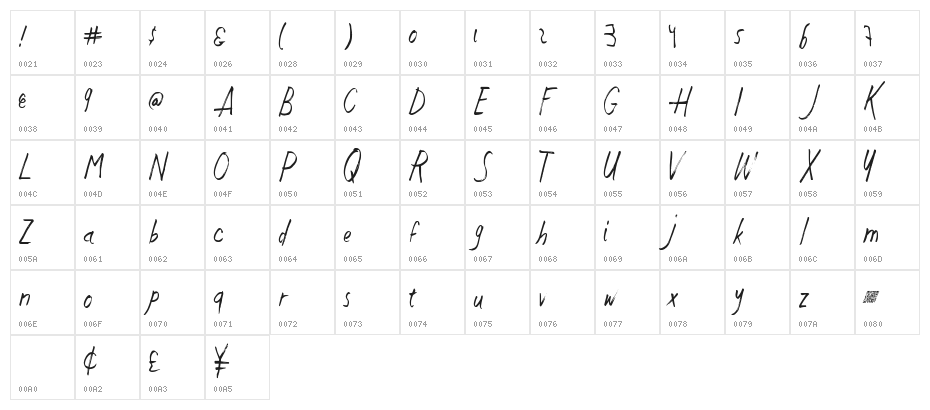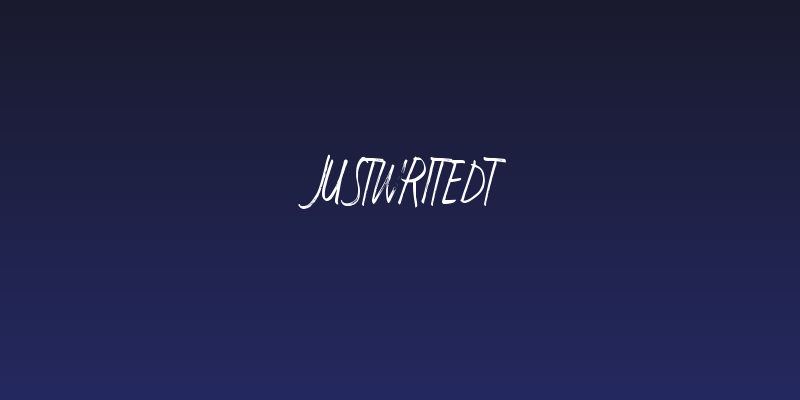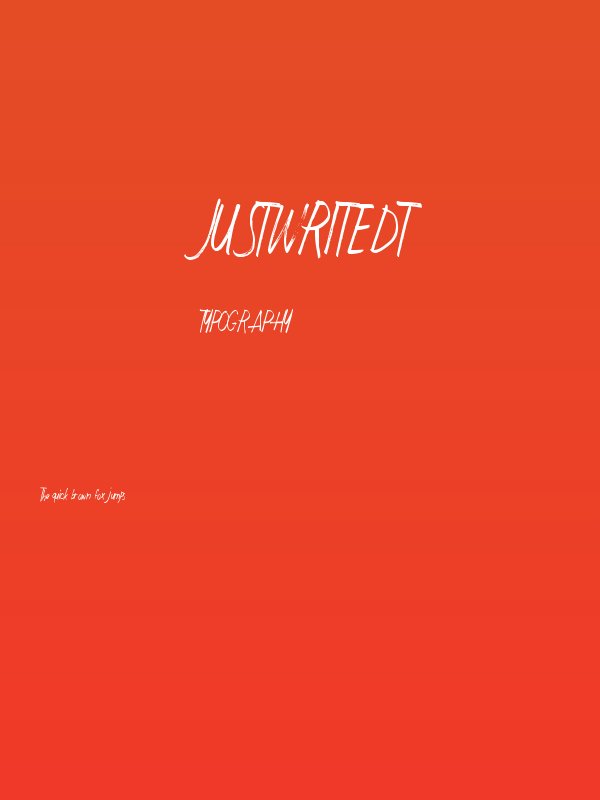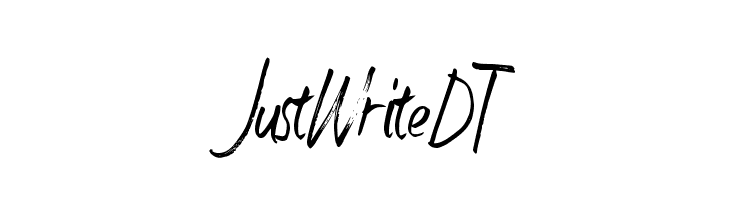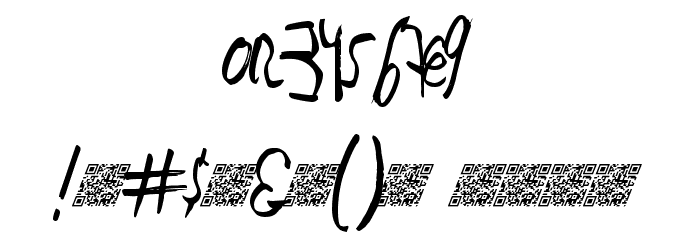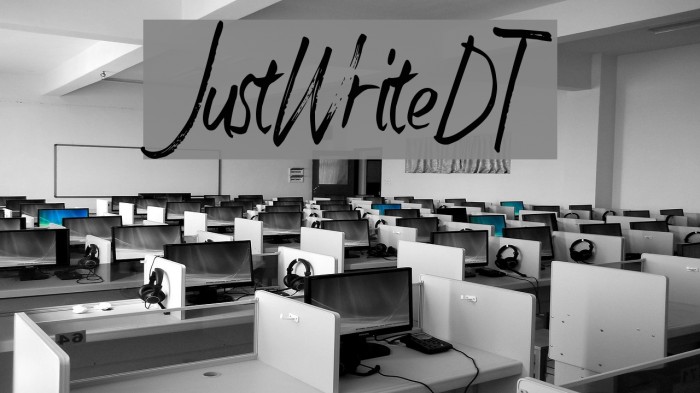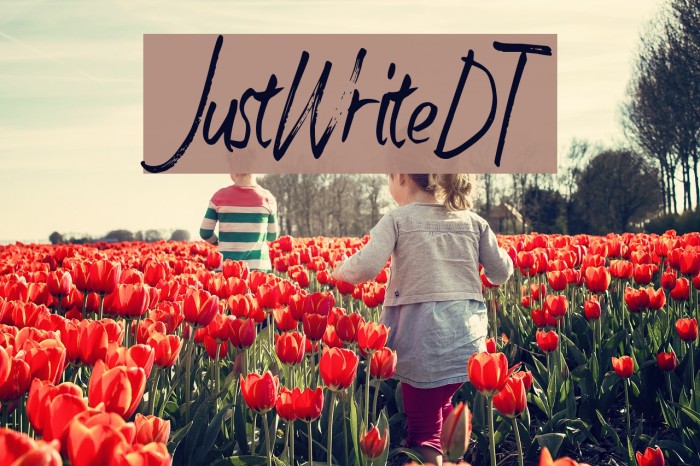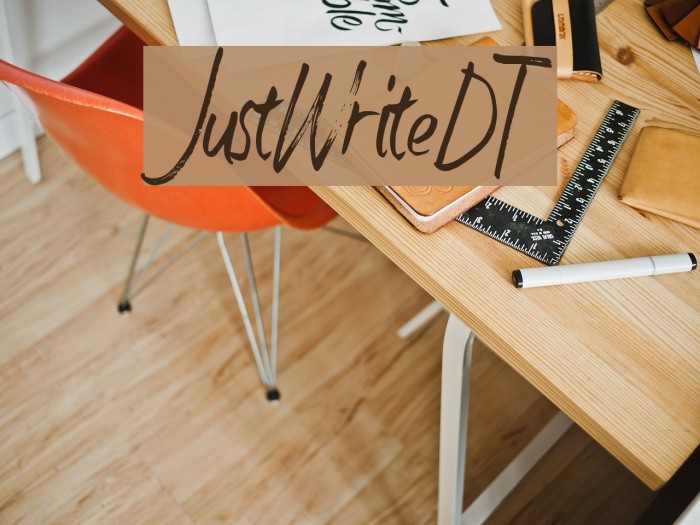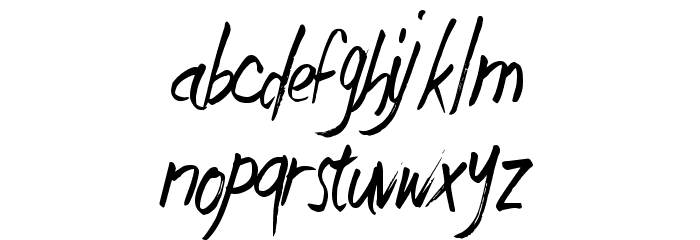
JustWriteDT Font
JustWriteDT Description
This font exudes a dynamic and expressive style, characterized by its handwritten appearance. The letters are slightly slanted, giving a sense of motion and fluidity. The strokes vary in thickness, creating a lively and energetic feel. The uppercase letters are bold and prominent, while the lowercase letters maintain a consistent flow. The numerals and special characters are crafted with the same energetic style, ensuring a cohesive look across all elements. This font is perfect for projects that require a personal touch or a creative flair.
| Overall Style | Expressive, Artistic |
| Proposed Projects | Ideal for creative projects such as greeting cards, invitations, posters, and branding materials that require a personal and artistic touch. |